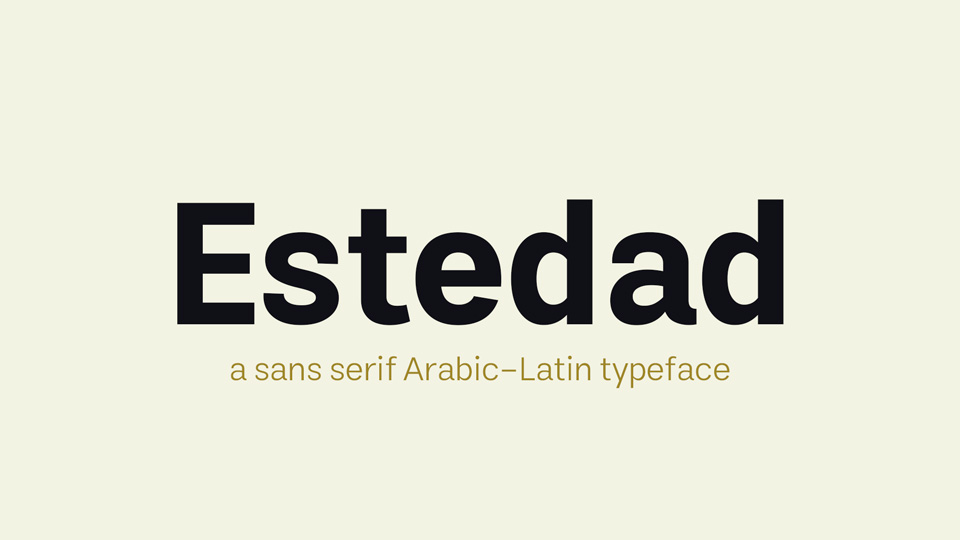
Download Estedad typeface, a sans serif Arabic-Latin font family in 9 weights and a variable version. Estedad is suitable for multiple usage. It has high legibility with modern and clear look to be use as text or display font.
Designer: Amin Abedi